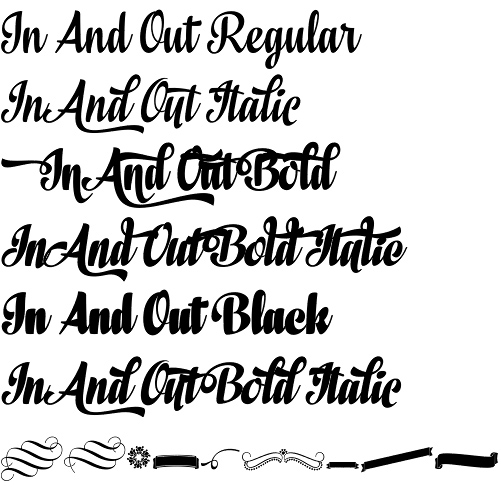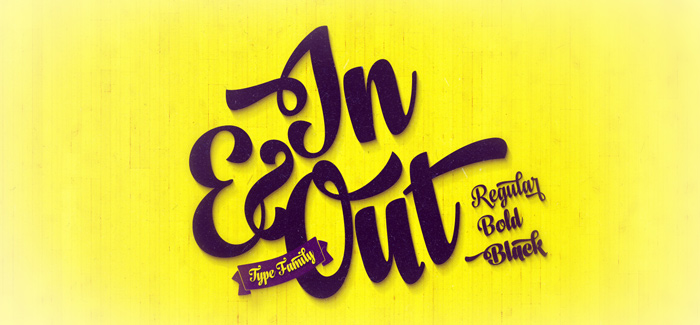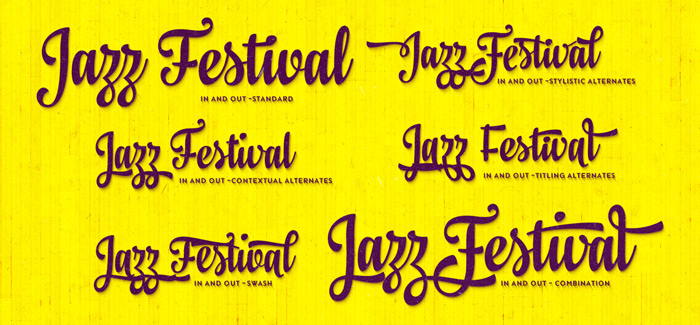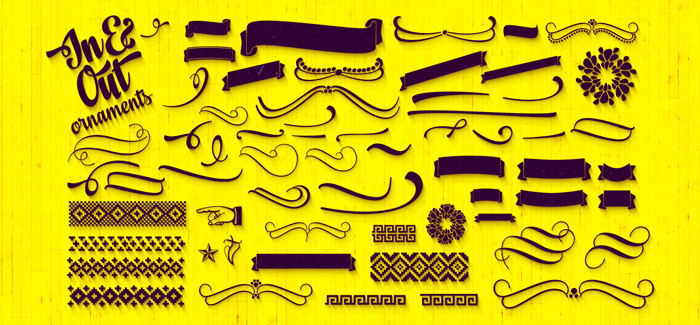
In And Out font
In And Out font by Fenotype is an upright elegant family influenced by brush writing. What we see here is something really rare for script fonts – this one is developed in 3 weights each of them supported by own italics. Adding weights to this family turns it into your effective and diverse typographic partner, italics make the show even more interesting and full of surprises. At the end all these great styles charged with many useful extra features fully available in open type savvy software. Optimized legibility combined with excellent work with contrast, apertures and character forms make In and Out your best choice for print designs as well as for screen use in web sites, applications, games etc. Above all In and Out’s best purpose is probably in food packaging, logo designs, t-shirts and of course strong and artistic headlines.
In and Out font is designed by Fenotype in 2014. More work by their fresh and ambitious designer Emil Karl Bertell is listed here: The Carpenter font, No. Seven font, Alek font, Voyage font, Barracuda Script font.
Designers: Emil Karl Bertell
Publisher: Fenotype